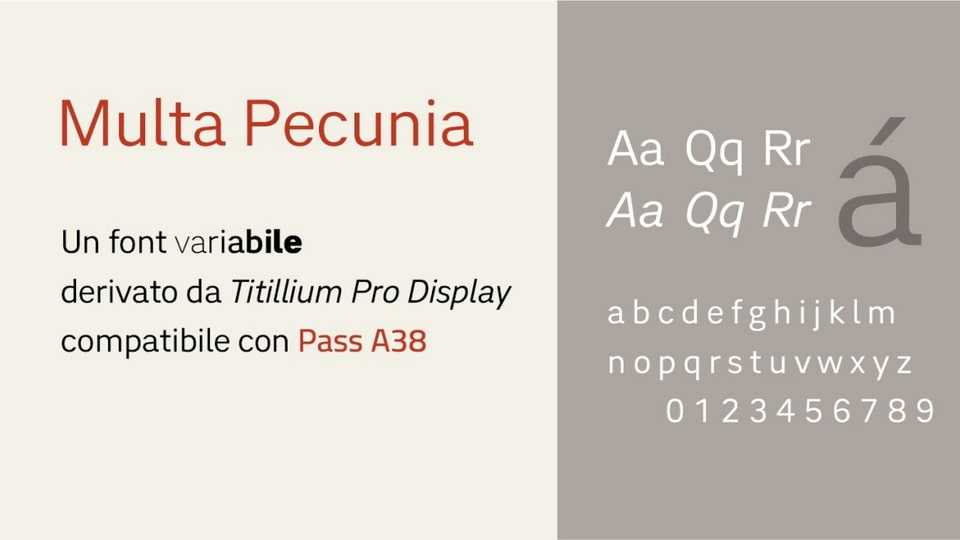
Download Multa Pecunia font, a variable typeface derived from Titillium Pro Display, a sleek and versatile typeface, designed to make an impact in any modern display setting.
Designer: Michele Casanova